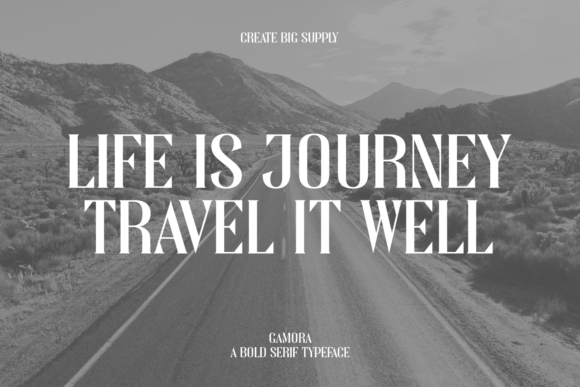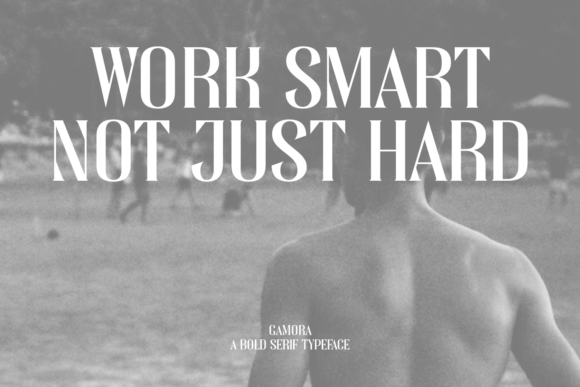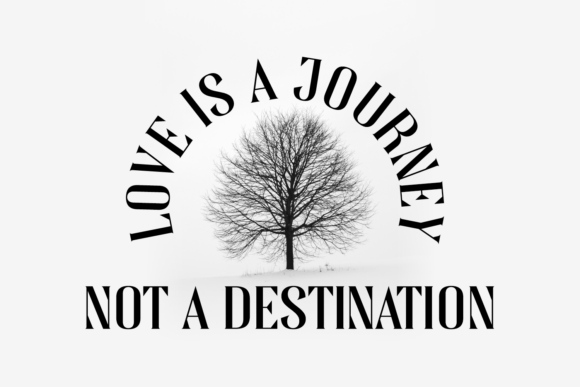
Gamora Font: Elevate Your Designs with Bold Elegance
In the realm of typography, fonts play a pivotal role in conveying messages, evoking emotions, and creating lasting impressions. Among the myriad of fonts available to designers and crafters, the Gamora Font stands out for its unique blend of contemporary style and vintage charm. This article delves into the characteristics, applications, and benefits of using Gamora, a bold and expressive serif font that is rapidly becoming a favorite among creative professionals.
The Essence of Gamora Font
Gamora is characterized by its strong lines and striking character, making it an ideal choice for projects that demand attention and exude confidence. Its serif design adds a touch of sophistication and elegance, while its bold nature ensures that it commands attention. Whether you’re working on headlines, posters, or impactful logos, Gamora brings a level of versatility and visual appeal that can elevate your designs to new heights.
Key Features of Gamora Font
- Bold and Expressive: Gamora’s boldness ensures it stands out in any design, making it perfect for headlines and titles that need to capture attention quickly.
- Serif Elegance: The serif details add a classic touch, lending an air of sophistication and elegance to any project.
- Contemporary Style: Despite its vintage undertones, Gamora boasts a modern appeal that aligns well with current design trends.
- Vintage Charm: The font’s design elements evoke a sense of nostalgia, making it suitable for projects that require a retro or vintage aesthetic.
- Versatility: Gamora can be used across various design projects, from digital content to print materials, offering flexibility to designers.
Applications of Gamora Font
The versatility of Gamora Font makes it suitable for a wide range of applications. Here are some of the most impactful uses:
- Headlines and Titles: Its bold nature makes it perfect for headlines in newspapers, magazines, and digital content.
- Posters and Flyers: Gamora’s striking appearance ensures that posters and flyers grab attention and convey messages effectively.
- Logos and Branding: For businesses looking to make a strong statement, Gamora can be used to create memorable and impactful logos.
- Packaging Design: The font’s elegance and boldness make it suitable for product packaging, especially for brands that want to stand out on the shelves.
- Digital Media: Gamora can also be used in digital media, including website headers, social media posts, and advertising banners.
Benefits of Using Gamora Font
Choosing Gamora Font for your design projects comes with several benefits:
- Uniqueness: Gamora offers a distinctive look that can set your designs apart from the competition.
- Emotional Impact: The font’s bold and expressive nature can evoke strong emotions and reactions from viewers.
- Flexibility: Suitable for both digital and print projects, Gamora provides designers with a flexible tool that can be adapted to various contexts.
- Timeless Appeal: Combining vintage charm with contemporary style, Gamora has a timeless quality that won’t go out of style quickly.
Gamora Font is a powerful tool for designers and crafters looking to add a bold and elegant touch to their projects. Its unique blend of contemporary style and vintage charm, coupled with its versatility and emotional impact, makes it an excellent choice for a wide range of applications. Whether you’re creating headlines, posters, logos, or any other design elements, Gamora can help you achieve your creative vision and make a lasting impression on your audience.
Incorporating Gamora into your design arsenal can open up new possibilities for creativity and expression. So, explore the potential of Gamora Font today and elevate your designs to bold new heights.